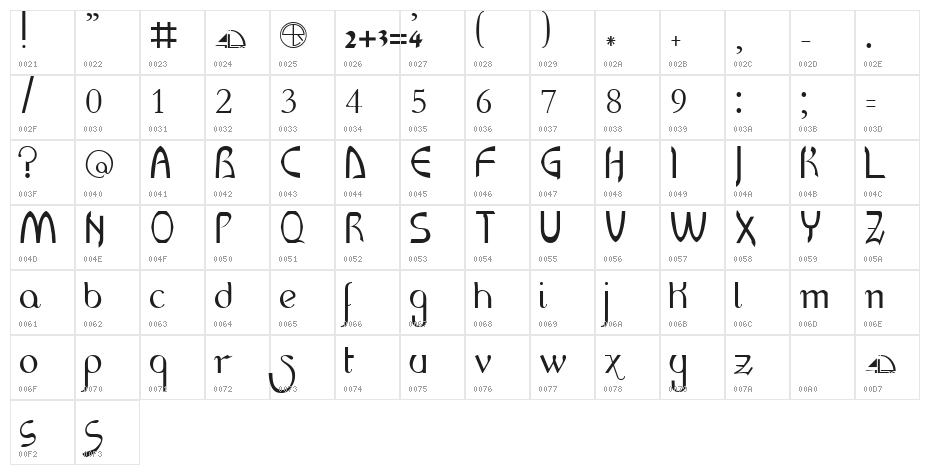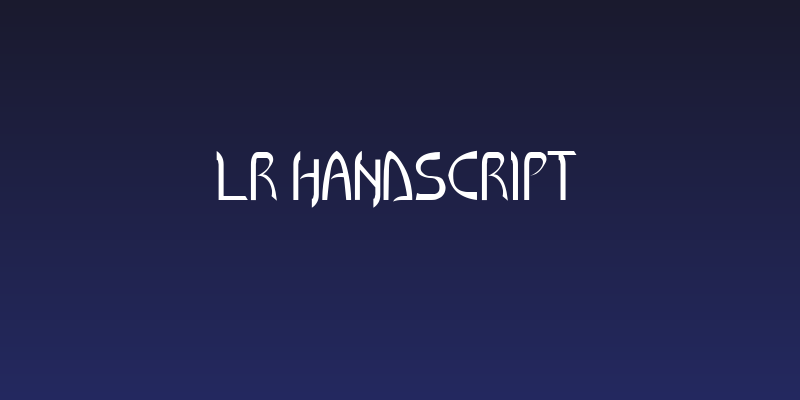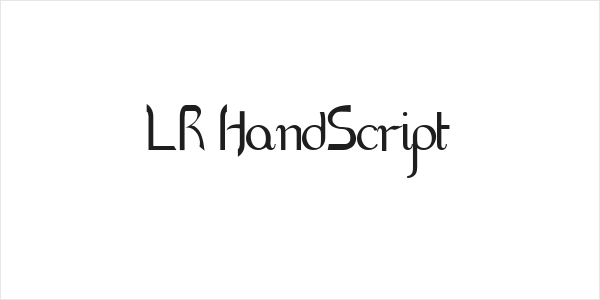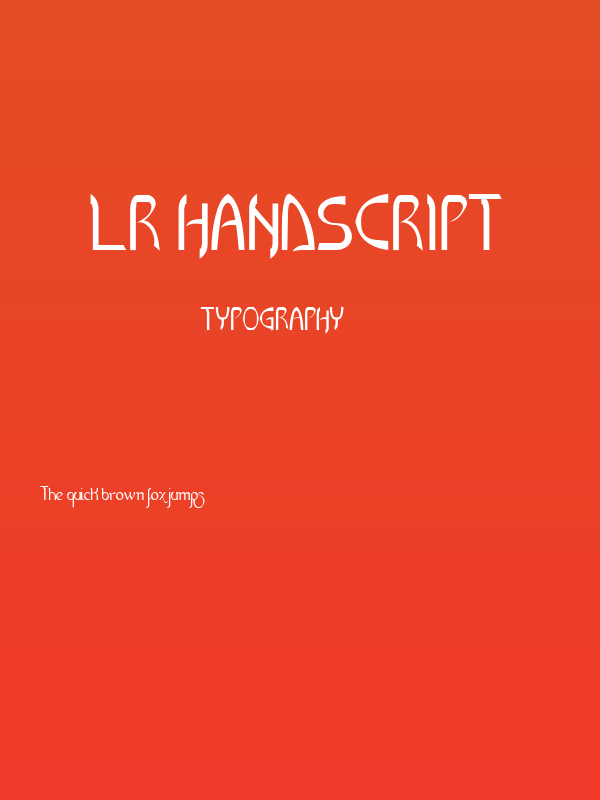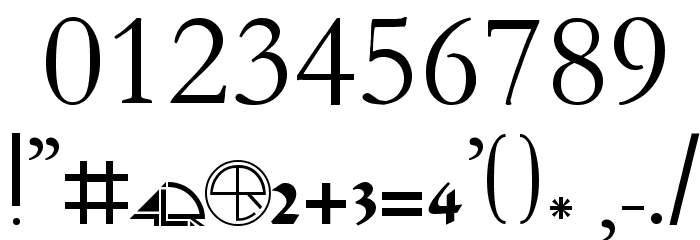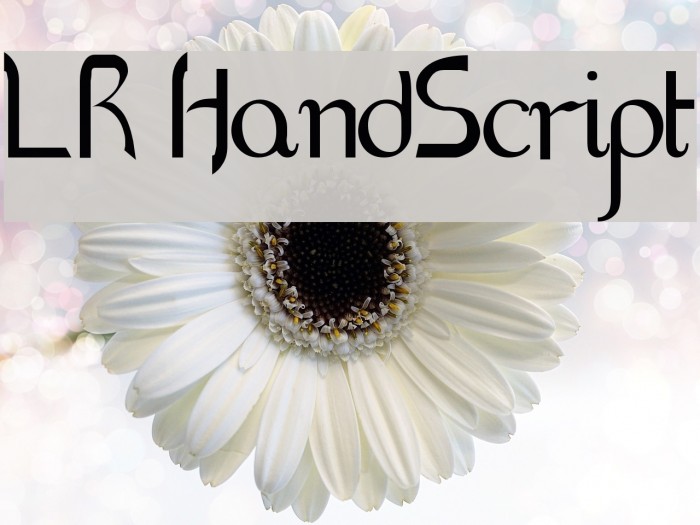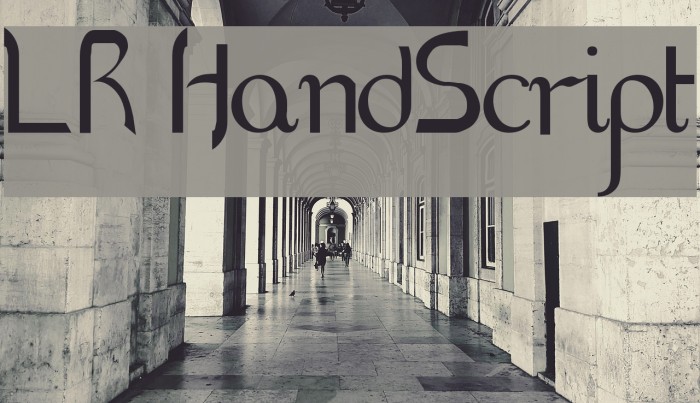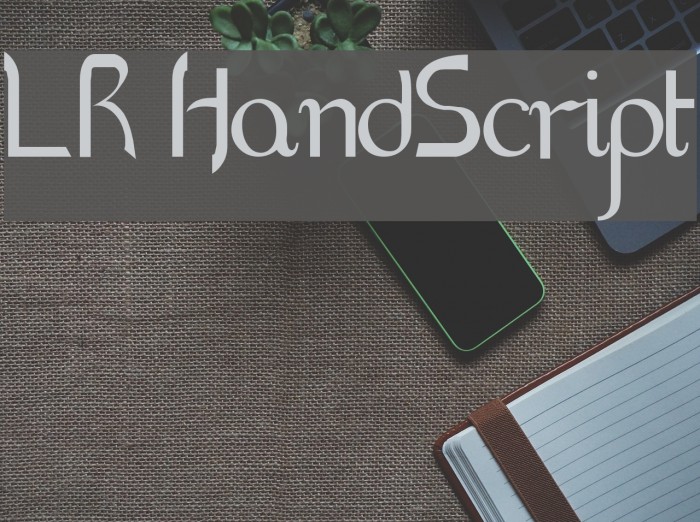
LR HandScript Font
LR HandScript Description
This font features a unique blend of geometric and calligraphic elements, creating a distinctive and artistic appearance. The uppercase letters are characterized by their bold, sweeping curves and sharp angles, giving them a dynamic and modern feel. The lowercase letters maintain a consistent style, with elegant loops and smooth transitions that enhance readability. Numbers are designed with a similar aesthetic, ensuring a cohesive look across all characters. Special characters are creatively integrated, adding a playful touch to the overall design. This font's artistic flair makes it suitable for projects that require a touch of creativity and sophistication.
| Use Case | Logos, Posters, Creative design |
| Proposed Projects | Ideal for branding, logos, posters, and creative design projects. |